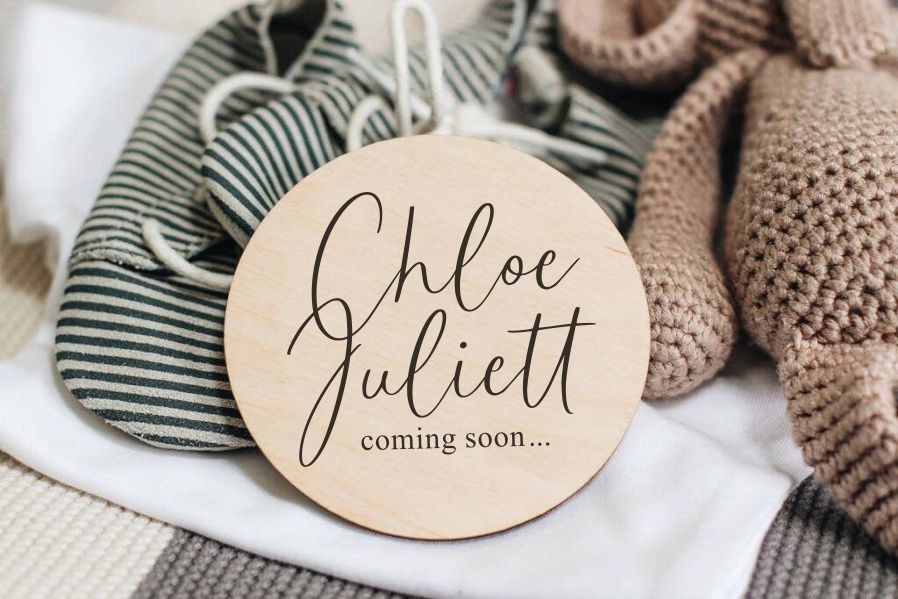
Billiongraph Font
Billiongraph Handwritten Font
It’s A Stylish Script Font. Billiongraph is perfect for product packaging, branding project, megazine, social media, wedding, or just used to express words above the background. This font includes OTF&TTF&Woff, Billiongraph also multilingual support.